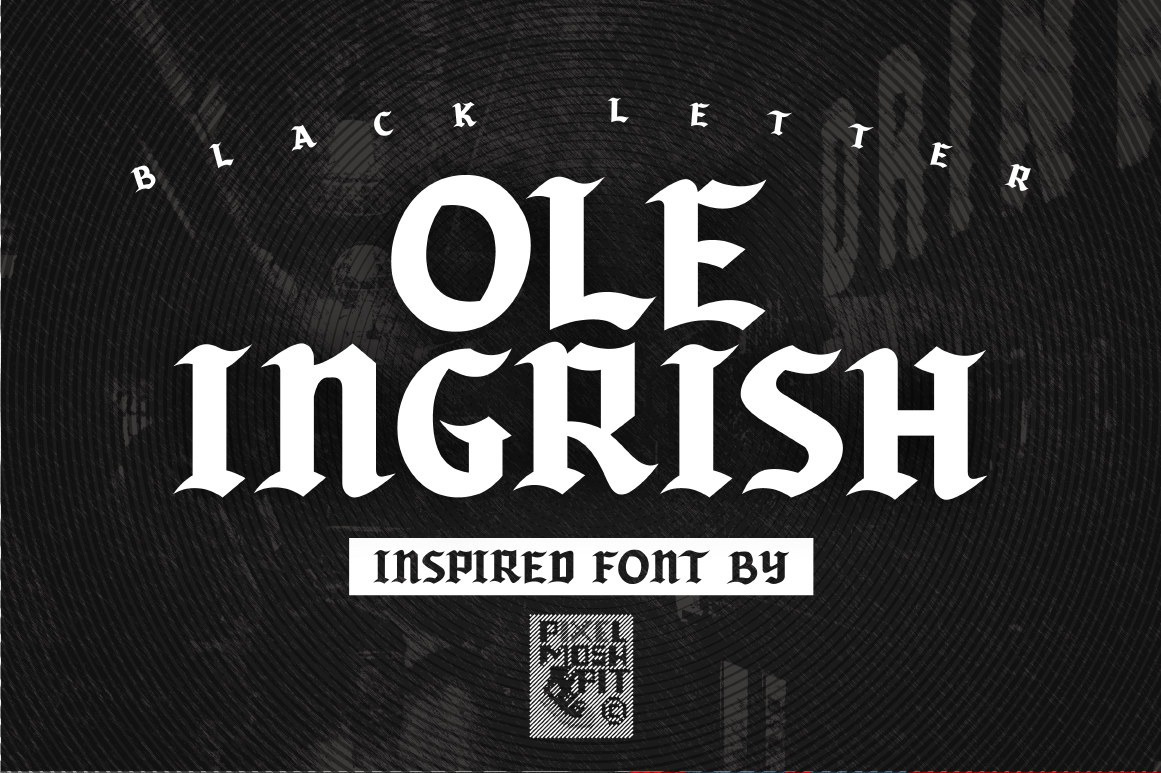
Inspired by delicious Blackletter/Ole English fonts with a simplified Caligraphy we bring you this inspired font. This font should have you ready to style any dark or dope apparel designs, album covers or anything else you think it can handle! Check out the samples for some ideas!